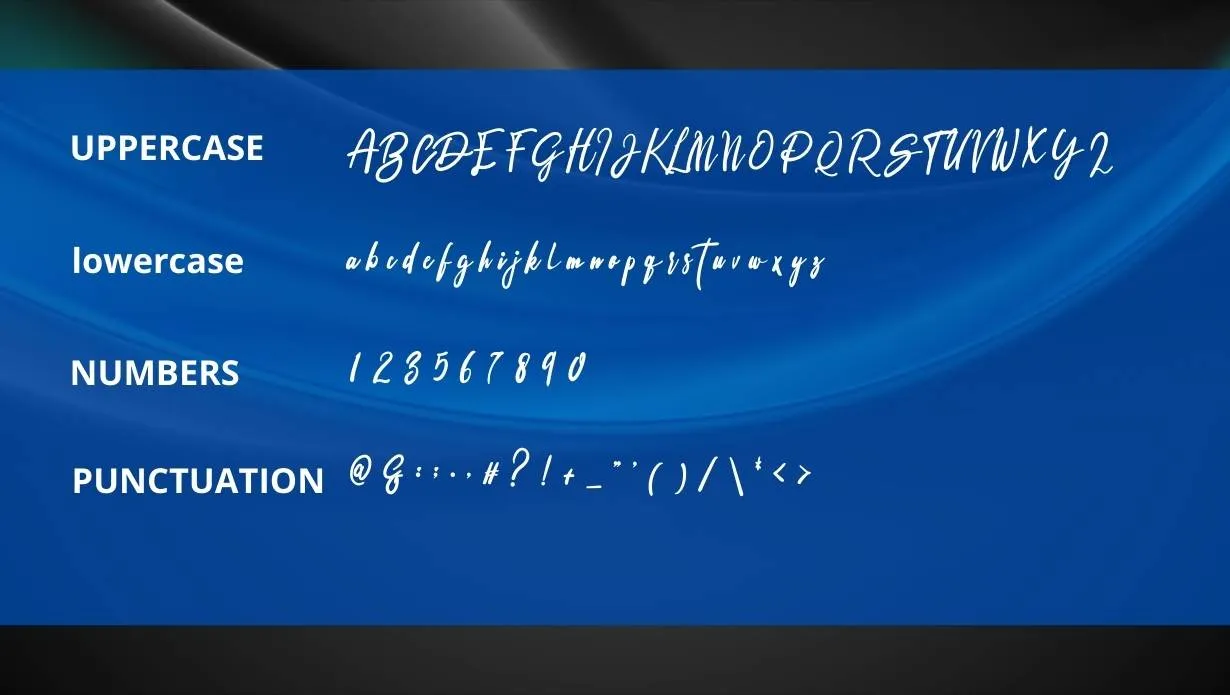
Signature Font Free Download
Signature Font has gorgeous and stylish characters suitable for any design project. This fabulous typeface lies under the Script font family. This stunning typeface is constructed by a well-known foundry Eddy Goodboy.
You can blend this typeface with human sans font to boost your project. This pair never fails to give you success and glory. There are 132 characters present in this font which includes uppercase letters, punctuations, special characters, numerals, and lowercase letters.
Signature Font Info
| Name | Signature Font |
| Designer | Eddy Goodboy |